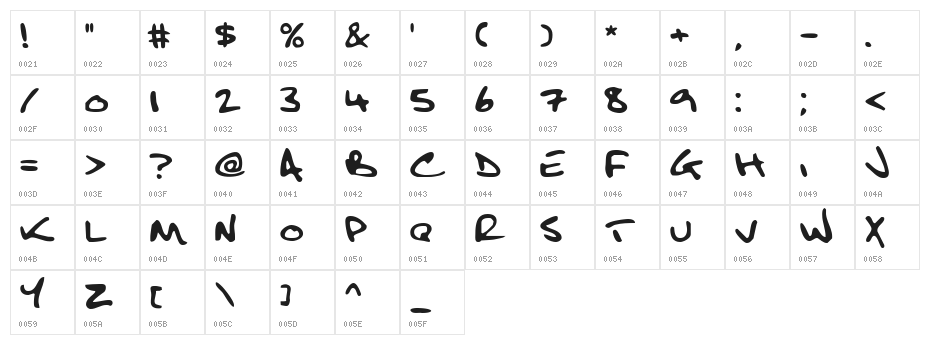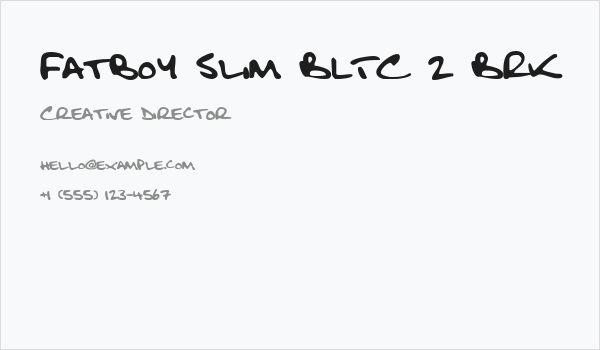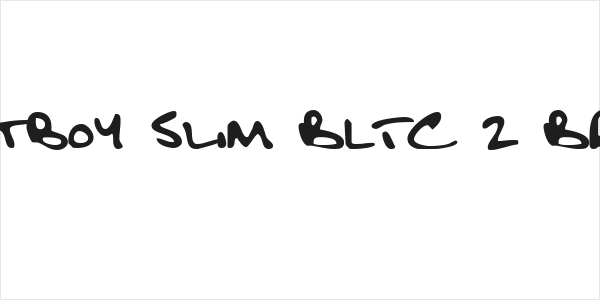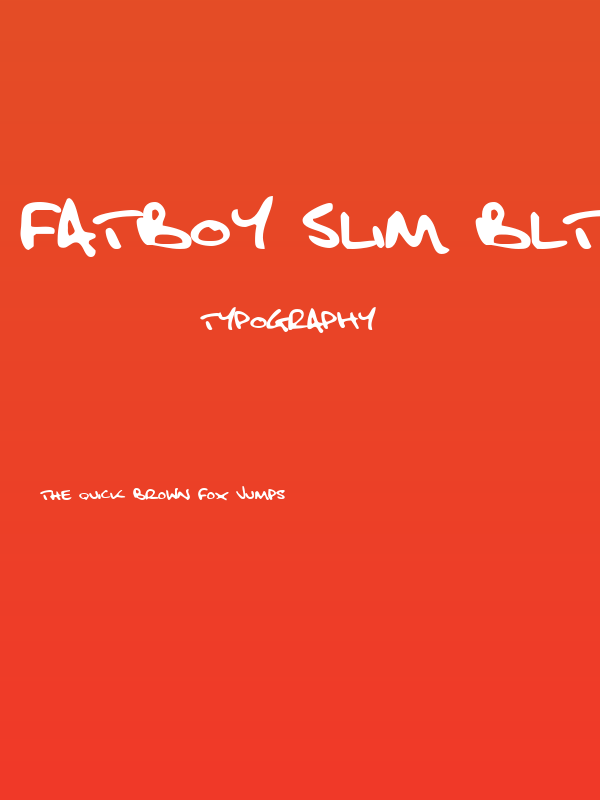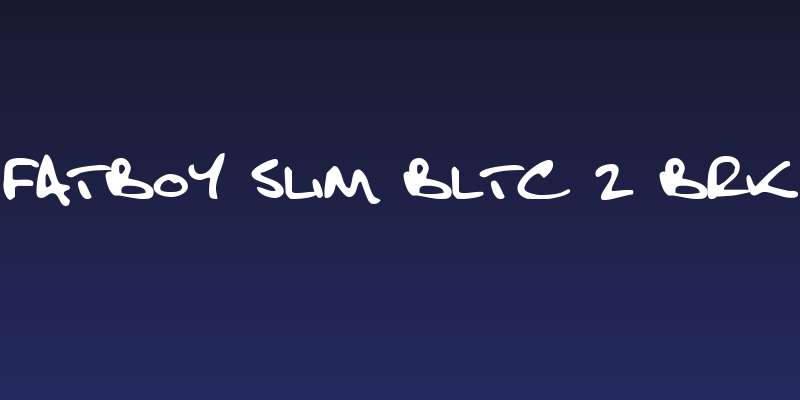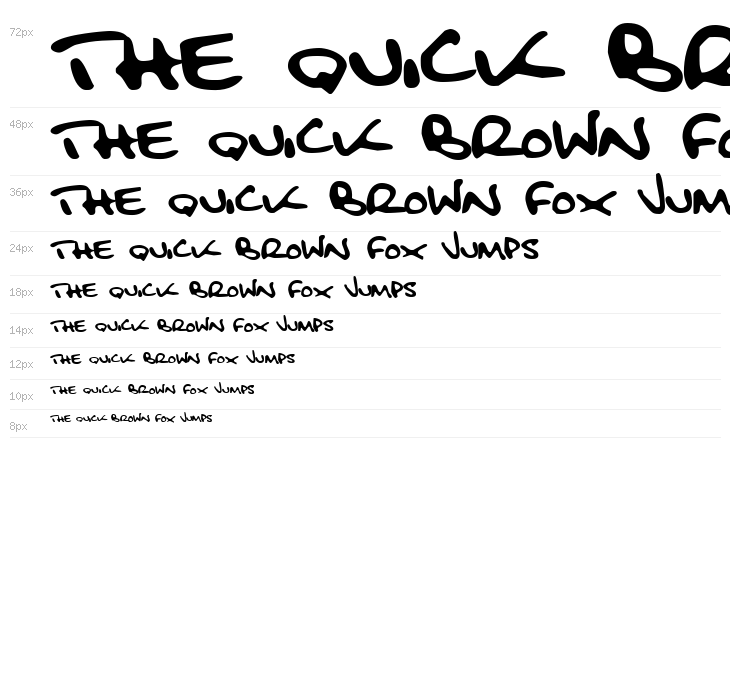
Fatboy Slim BLTC 2 BRK Font
Fatboy Slim BLTC 2 BRK Description
This font features a bold, handwritten style with a playful and energetic appearance. The characters are thick and rounded, giving them a friendly and approachable feel. The strokes are uneven, adding a dynamic and informal touch to the text. This font captures a sense of spontaneity and creativity, making it ideal for projects that require a personal and lively expression. The letters are closely spaced, enhancing the compact and cohesive look of the text. The font's unique style is perfect for conveying a sense of fun and movement.
Proposed ProjectsIdeal for posters, children's books, comic strips, and creative branding projects.